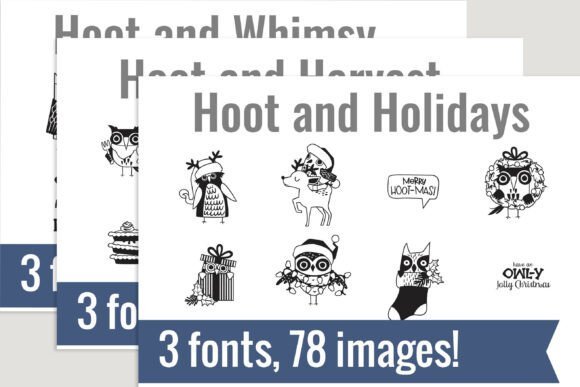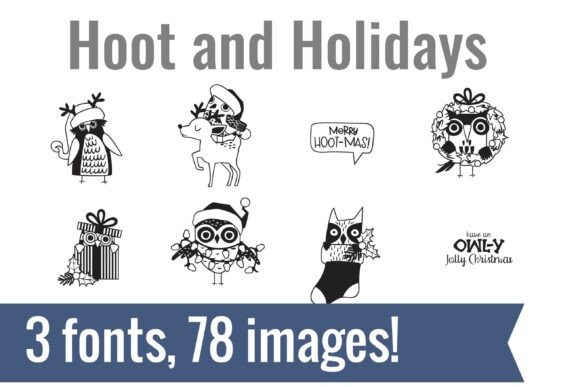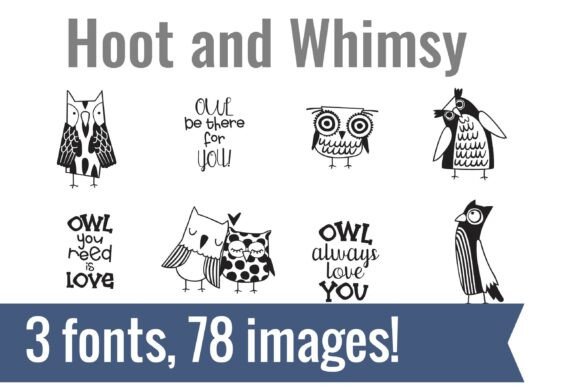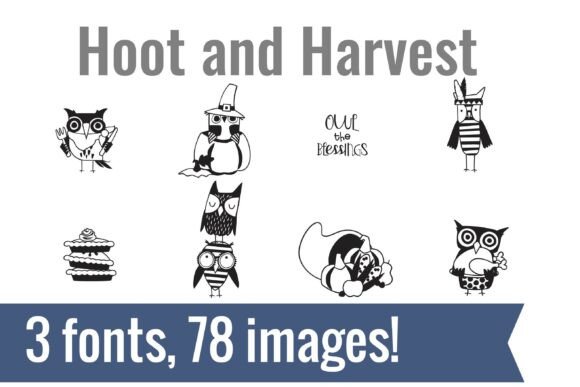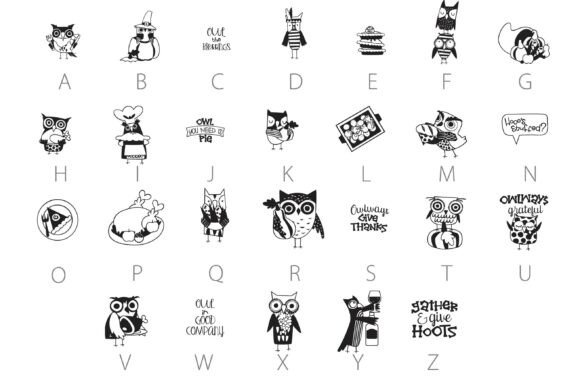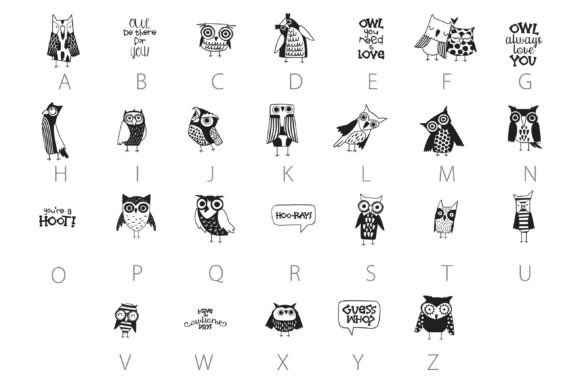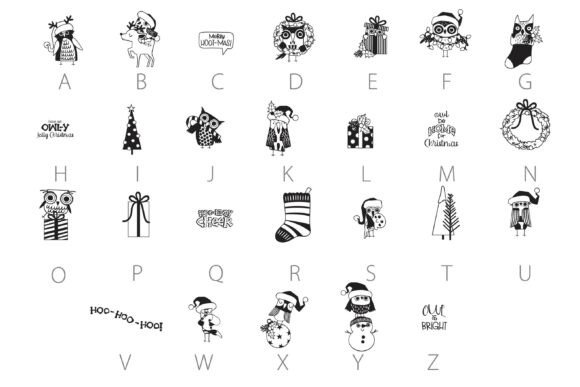
Unleash Your Creativity with Hoot Dingbats Font
Have you ever spent hours searching for the perfect icon or graphic to complete your design, only to end up with something that just doesn’t quite fit? We’ve all been there. The frustration of sifting through countless options can be overwhelming, especially when you’re on a deadline. But what if you could have dozens of cohesive, scalable designs at your fingertips?
Introducing the Hoot Dingbats Font, a bundle of three perfectly coordinated fonts featuring the cutest owls. With Hoot and Holidays, Hoot and Harvest, and Hoot and Whimsy, you’ll have everything you need to create stunning designs for vinyl cutting, paper crafts, planners, and more. Whether you’re a seasoned designer or just starting out, this font is a game-changer.
Hoot Dingbats Font Key Features
- Font Family: Hoot Dingbats
- Unique Character Set: Includes 300+ dingbats, icons, and ornaments, making it ideal for creative projects and designs
Hoot Dingbats Font Review
I recently had the chance to work with the Hoot Dingbats Font, and overall, I’m quite pleased with the experience. ✨ One of the things that stood out to me was the playful, whimsical feel of the font. It’s perfect for projects that need a touch of personality and fun. The font is also highly customizable, allowing you to easily adjust the size, color, and style to fit your design needs.
- Unique and quirky design
- Perfect for projects that need a playful touch
That being said, there are a few limitations to the font that I want to mention. ⚠️ One of the main issues is that the font can be quite overwhelming if used in large quantities. It’s best to use it sparingly and as an accent font to avoid visual overload. Additionally, the font may not be the best choice for projects that require a more formal or professional tone.
Overall, I’d give the Hoot Dingbats Font a solid 4 out of 5 stars. It’s a great choice for projects that need a fun and playful touch, but may not be the best fit for more formal or professional designs. With a little creativity and restraint, this font can really make your designs stand out.
For best results, use the Hoot Dingbats Font for titles, headings, and emphasis. It’s perfect for creating eye-catching designs, posters, and social media graphics. You can also use it for adding a playful touch to your presentations and documents. Experiment with different font sizes and combinations to achieve unique effects.